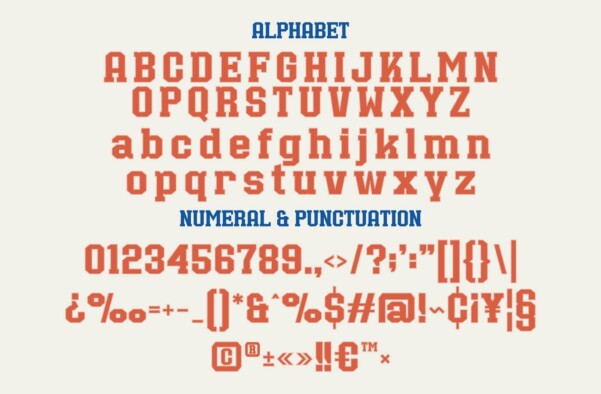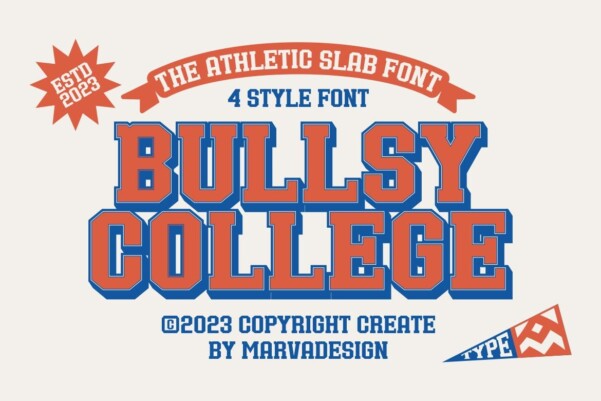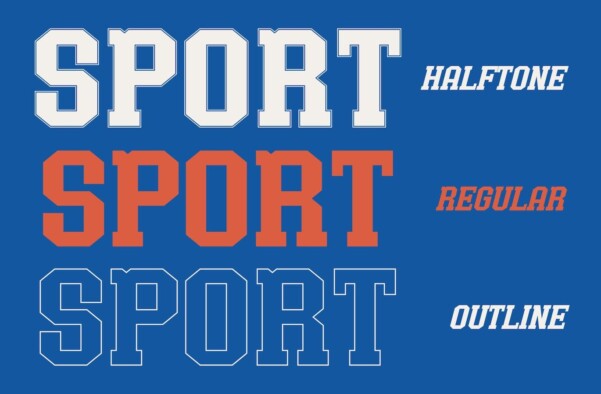
Bullsy College Font
Bullsy College Font – An authentic Classic Sport Font display font. The font is suitable for any branding project like Logo, Template Design, Product and many more. It is remarkable in a wide range of contexts